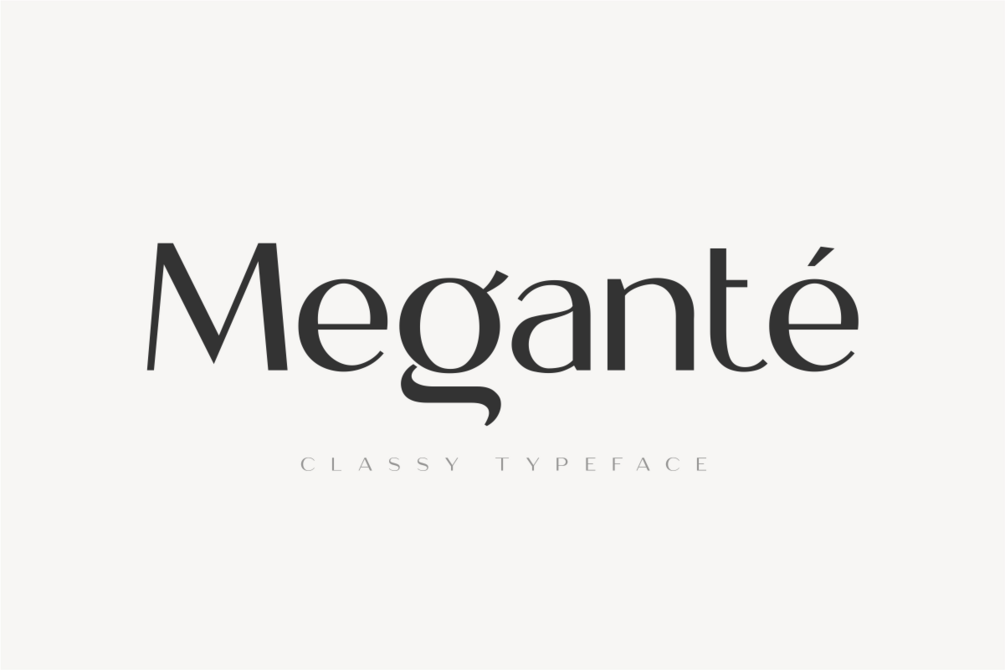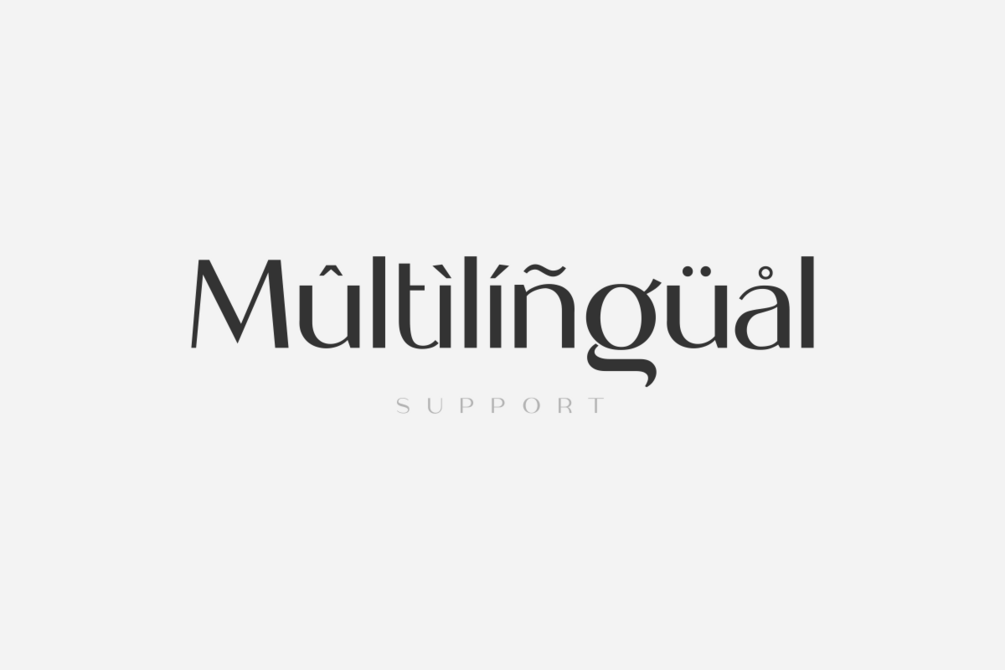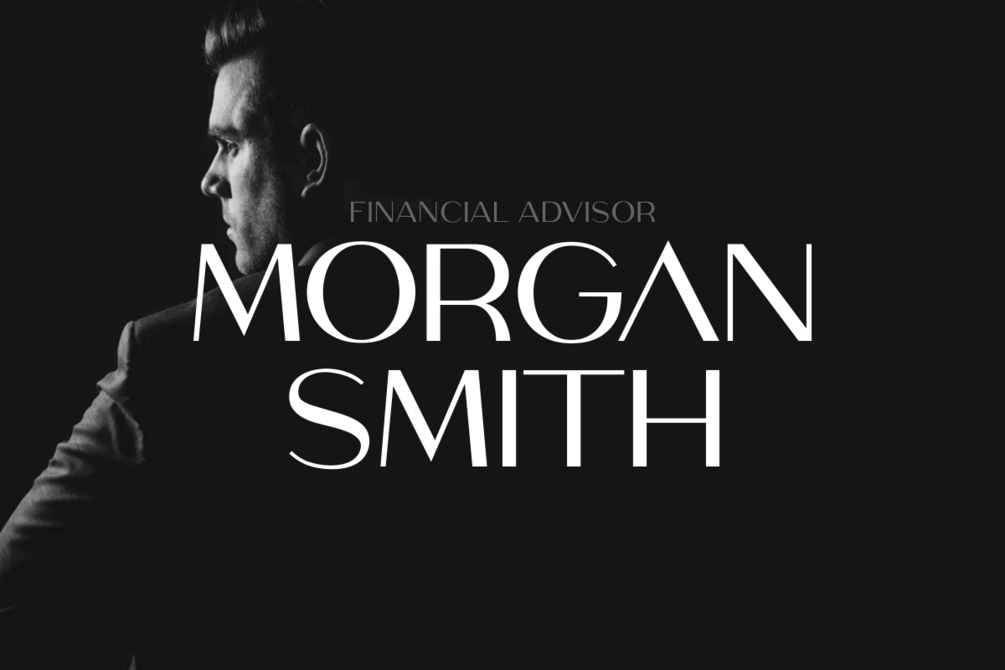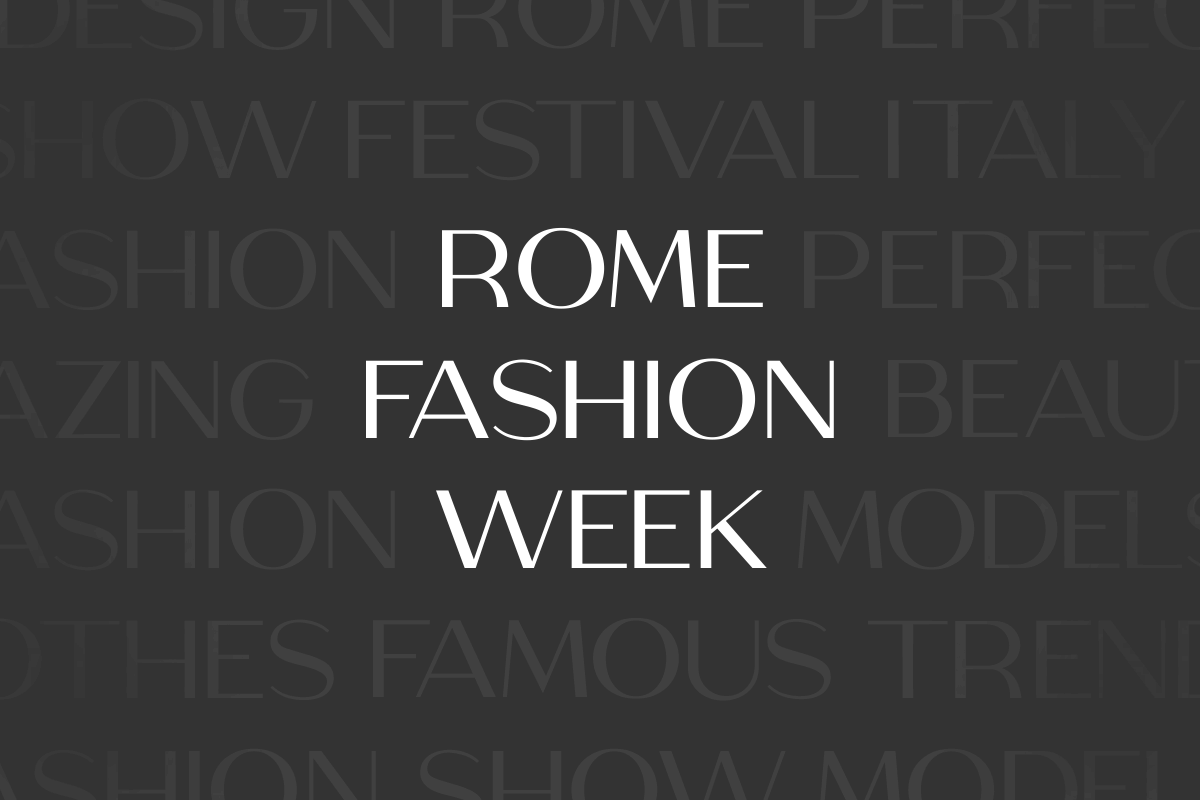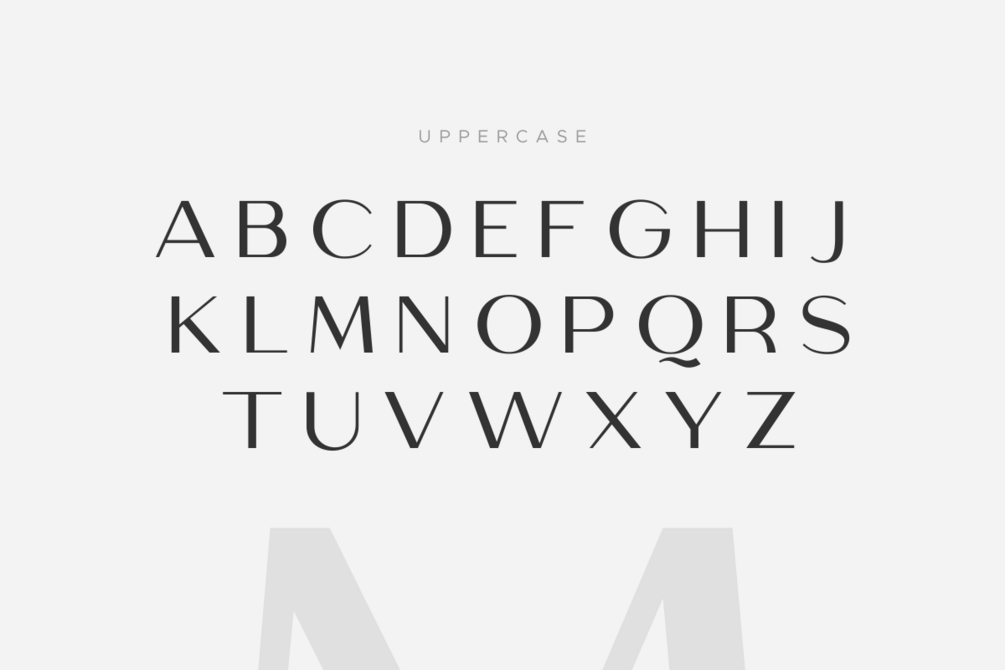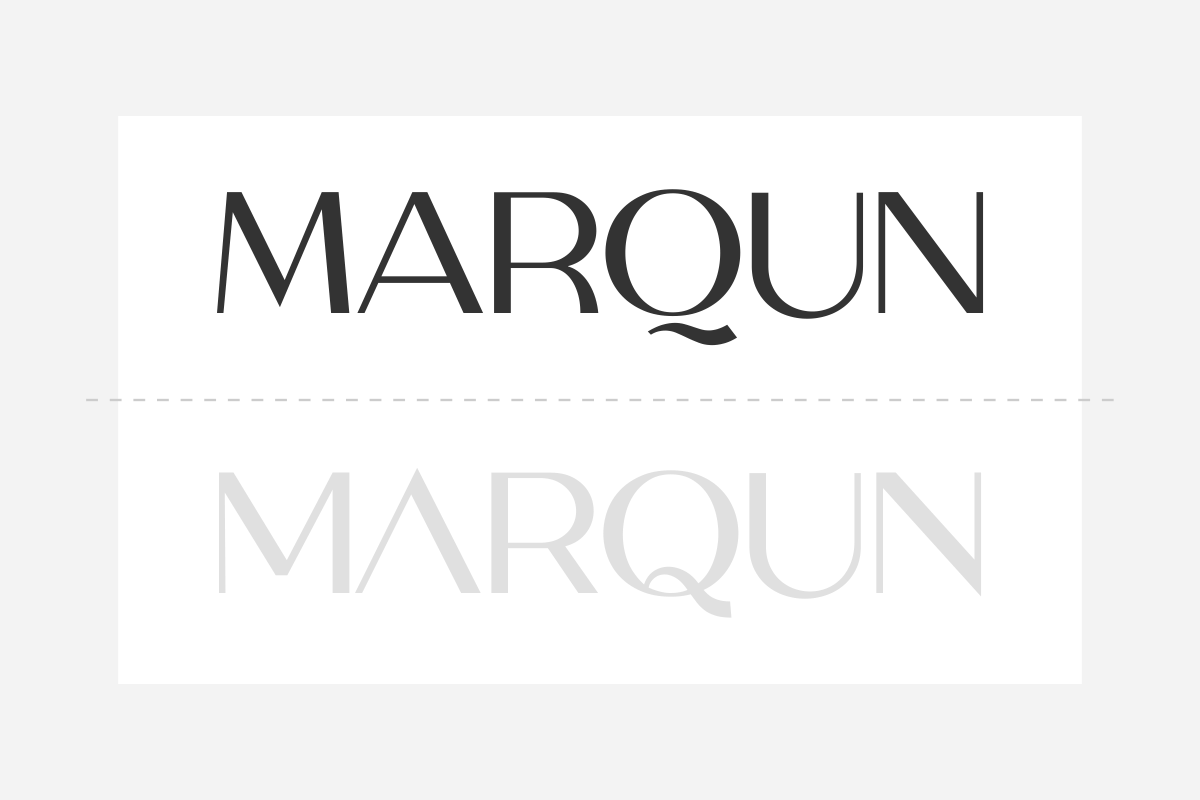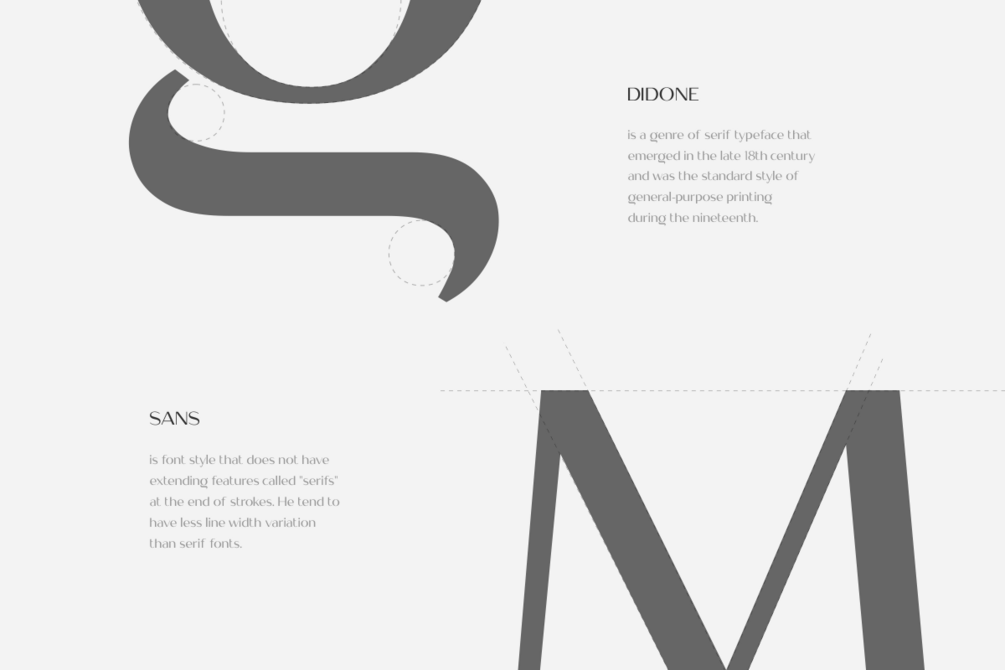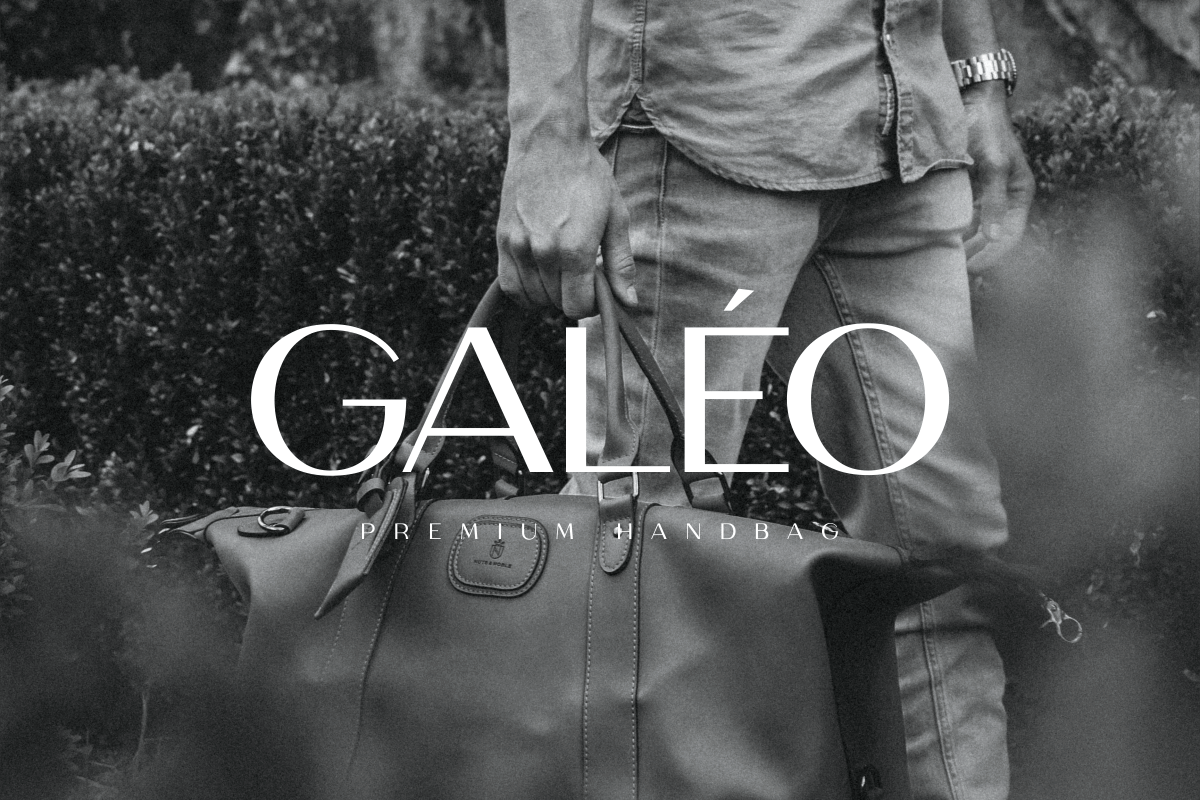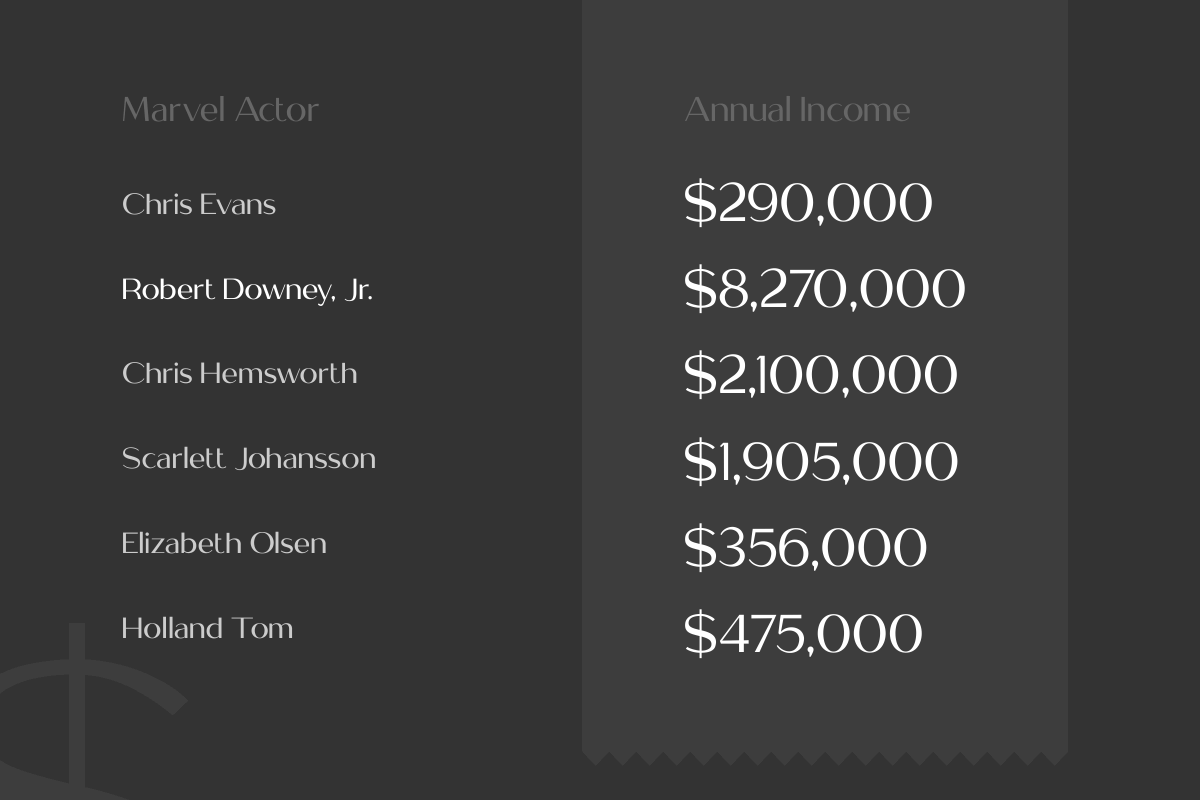
Megante - Classy Font
Megante is a classy font designed to bring elegance and sophistication to your creative projects. Its refined letterforms make it perfect for branding, logos, invitations, packaging, and editorial designs.
Balancing style and readability, Megante gives your designs a polished, professional, and visually appealing look. Ideal for both print and digital applications, this font adds a touch of class to any project.
Megante – Classy Font Features
• Elegant and refined character set
• Stylish, sophisticated, and professional design
• Includes uppercase, lowercase, numerals, and punctuation
• Perfect for digital and print projects
• OpenType features for versatile typography
• Multilingual support